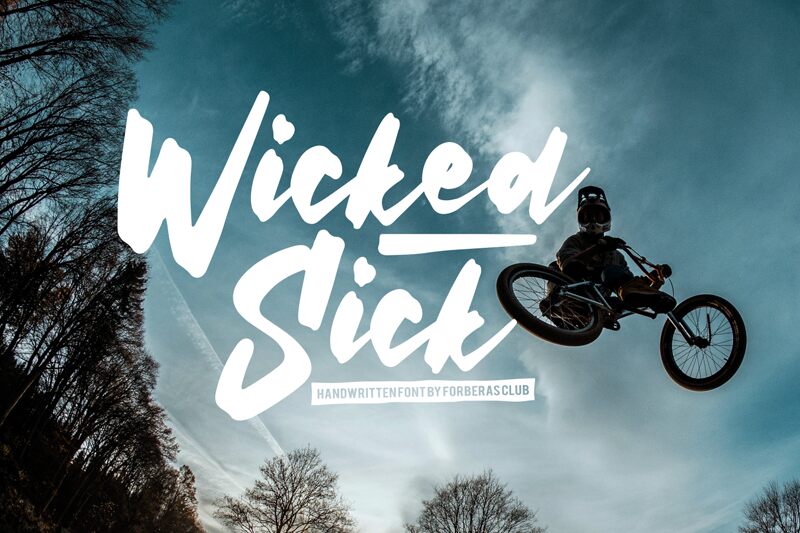
Wicked Sick
Wicked Sick font by Forberas Club is an expressive brush font with a dynamic flow and signature feel. The bold texture mimics the perfect imperfections of handwriting in an authentic way with its natural curves and thicks and thins. An intense typographic touch can be added in all the projects you find to share, so take a stand now!
A free calligraphy font that expresses itself like no other, it’s as fut for branding designs as it is for social media covers, invitations (wedding or baby shower), magazines, businesses cards, photographs, merchandise designs like hats and shirts, etc. Don’t limit yourself to this short list!